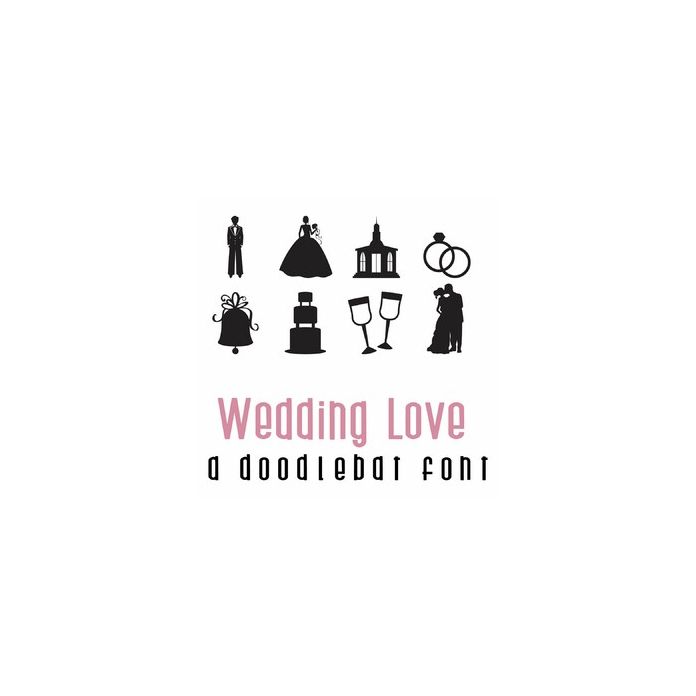
This fun doodlebat font features 26 wedding and love themed images. Perfect for cards, crafts, gifts, decor, scrap book pages, planner stickers and more!